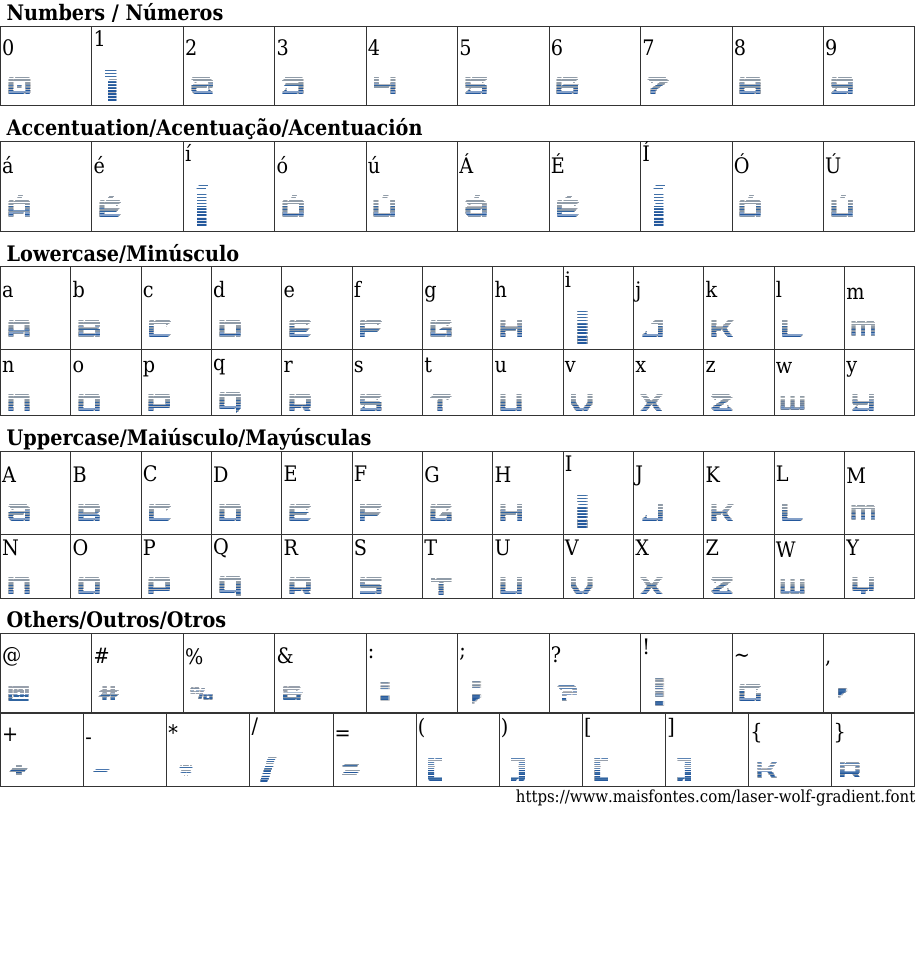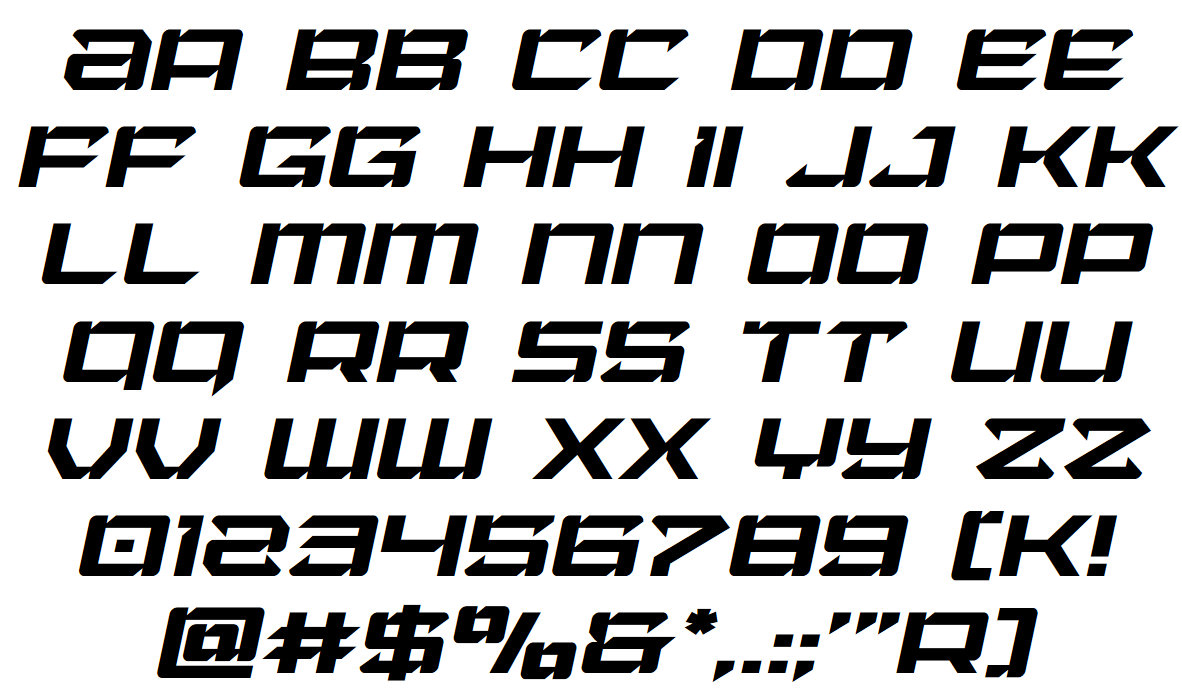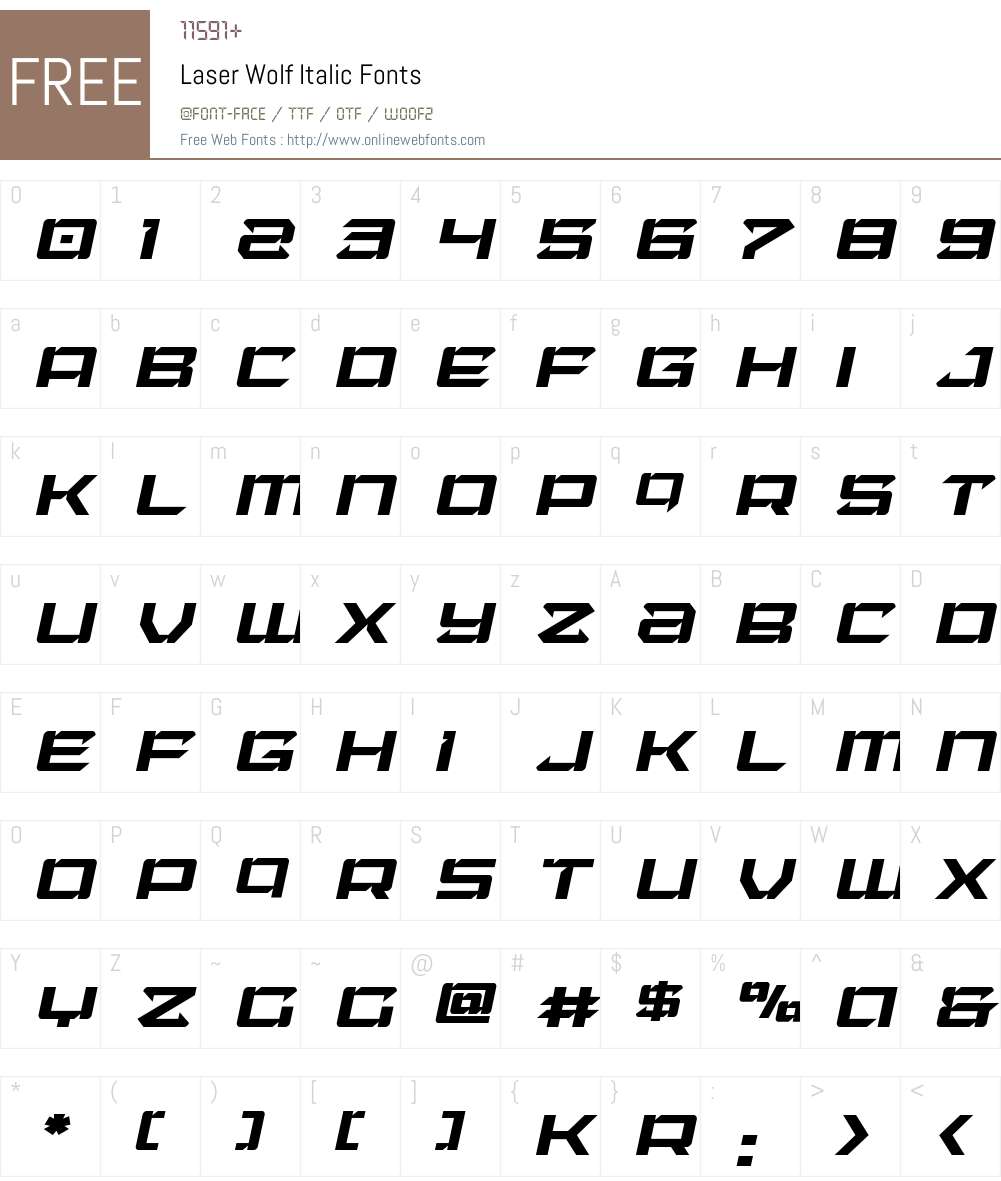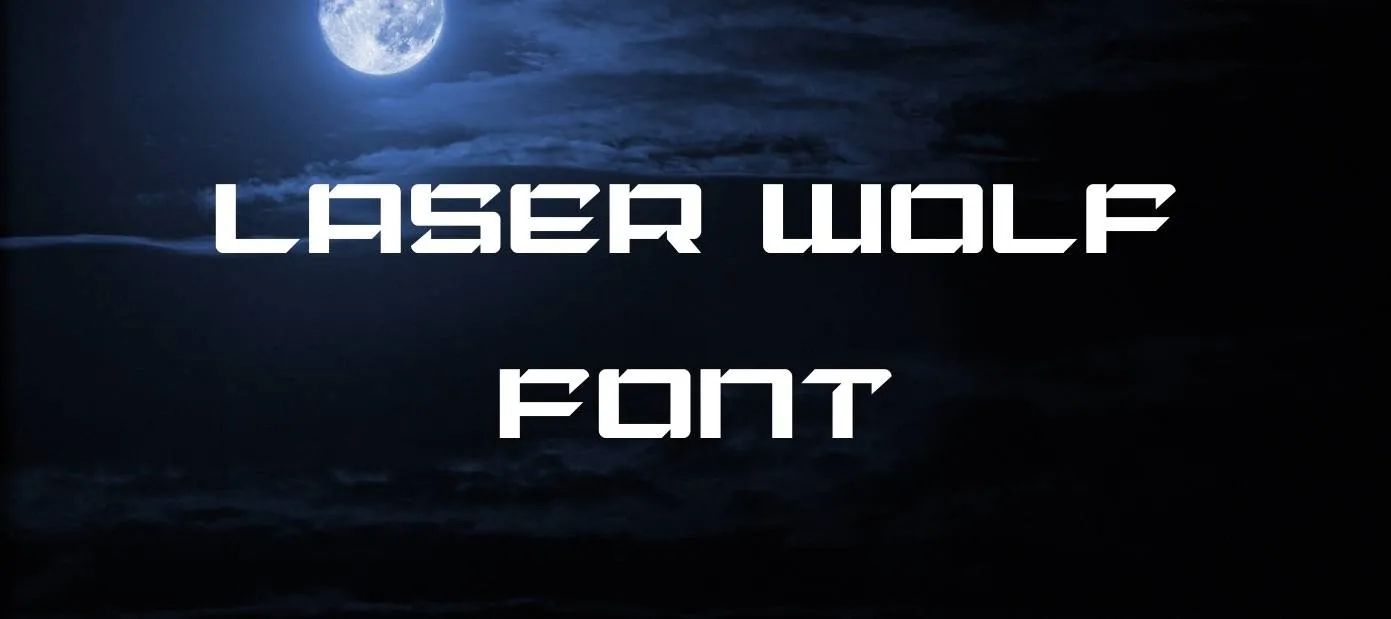
Laser Wolf Font . Laser wolf is a techno type font that can be used on any device such as pc, mac, linux,. File script name laserwolf.ttf download free for personal use. The laser wolf font contains 221 beautifully designed characters. Laser wolf à € by iconian fonts. Looking for laser wolf font designed by iconian fonts? The laser wolf bold font was designed by daniel zadorozny. Laser wolf font free download. A great choice for highlighting your design elements. Even a stopped clock is right twice a day.” Download font free at fontriver. Laser wolf “being right is highly overrated. Click here to create a custom image with your own text. Laser wolf font download is available free from fontget. ️ customize your own preview on ffonts.net to make sure it`s the right one for your designs. Laser wolf regular font by iconian fonts.
Looking for laser wolf font designed by iconian fonts? Download font free at fontriver. Click here to create a custom image with your own text. The laser wolf font contains 221 beautifully designed characters. Laser wolf à € by iconian fonts. Laser wolf bold is the perfect font for all your fun designs. A great choice for highlighting your design elements. File script name laserwolf.ttf download free for personal use. Laser wolf is a techno type font that can be used on any device such as pc, mac, linux,. Laser wolf font download is available free from fontget.
Laser Wolf Font Laser wolf font download is available free from fontget. The laser wolf font contains 221 beautifully designed characters. Laser wolf font free download. The laser wolf bold font was designed by daniel zadorozny. Laser wolf is a techno type font that can be used on any device such as pc, mac, linux,. Laser wolf à € by iconian fonts. Laser wolf bold is the perfect font for all your fun designs. Laser wolf font download is available free from fontget. Laser wolf “being right is highly overrated. Even a stopped clock is right twice a day.” Click here to create a custom image with your own text. ️ customize your own preview on ffonts.net to make sure it`s the right one for your designs. Looking for laser wolf font designed by iconian fonts? File script name laserwolf.ttf download free for personal use. A great choice for highlighting your design elements. Laser wolf regular font by iconian fonts.
Download free Laser Wolf Regular font laserwolf.ttf Laser Wolf Font Looking for laser wolf font designed by iconian fonts? Laser wolf “being right is highly overrated. Even a stopped clock is right twice a day.” Laser wolf font download is available free from fontget. Laser wolf bold is the perfect font for all your fun designs. Laser wolf regular font by iconian fonts. Laser wolf à € by iconian fonts.. Laser Wolf Font.
Laser Wolf 3D Italic Font Laser Wolf Font Even a stopped clock is right twice a day.” ️ customize your own preview on ffonts.net to make sure it`s the right one for your designs. Laser wolf regular font by iconian fonts. Laser wolf bold is the perfect font for all your fun designs. Click here to create a custom image with your own text. Laser wolf à €. Laser Wolf Font.
Laser Wolf Font Free Download Laser Wolf Font Laser wolf “being right is highly overrated. Laser wolf font free download. Download font free at fontriver. Laser wolf à € by iconian fonts. Even a stopped clock is right twice a day.” A great choice for highlighting your design elements. The laser wolf font contains 221 beautifully designed characters. Laser wolf font download is available free from fontget. Click. Laser Wolf Font.
Laser Wolf Italic Font Laser Wolf Font Laser wolf bold is the perfect font for all your fun designs. The laser wolf font contains 221 beautifully designed characters. The laser wolf bold font was designed by daniel zadorozny. Laser wolf à € by iconian fonts. Even a stopped clock is right twice a day.” File script name laserwolf.ttf download free for personal use. Looking for laser wolf. Laser Wolf Font.
Laser Wolf Italic 1.0; 2017 Fonts Free Download Laser Wolf Font ️ customize your own preview on ffonts.net to make sure it`s the right one for your designs. Laser wolf regular font by iconian fonts. The laser wolf bold font was designed by daniel zadorozny. A great choice for highlighting your design elements. Looking for laser wolf font designed by iconian fonts? Download font free at fontriver. Laser wolf font download. Laser Wolf Font.
Laser Wolf Bold font Laser Wolf Font The laser wolf bold font was designed by daniel zadorozny. Laser wolf “being right is highly overrated. Even a stopped clock is right twice a day.” Click here to create a custom image with your own text. ️ customize your own preview on ffonts.net to make sure it`s the right one for your designs. The laser wolf font contains 221. Laser Wolf Font.
Wolf Svg Wolf Font Howling Wolf Silhouette Etsy Australia Laser Wolf Font Laser wolf regular font by iconian fonts. Laser wolf “being right is highly overrated. Laser wolf font download is available free from fontget. Download font free at fontriver. A great choice for highlighting your design elements. ️ customize your own preview on ffonts.net to make sure it`s the right one for your designs. The laser wolf bold font was designed. Laser Wolf Font.
Wolf Laser SVG Cut File, Wolf DXF, Wolf Wall Art SVG So Fontsy Laser Wolf Font File script name laserwolf.ttf download free for personal use. Laser wolf font free download. Laser wolf regular font by iconian fonts. Laser wolf is a techno type font that can be used on any device such as pc, mac, linux,. Laser wolf “being right is highly overrated. The laser wolf bold font was designed by daniel zadorozny. A great choice. Laser Wolf Font.
Laser Wolf Gradient Free Font Download MaisFontes Laser Wolf Font Laser wolf à € by iconian fonts. The laser wolf bold font was designed by daniel zadorozny. The laser wolf font contains 221 beautifully designed characters. Looking for laser wolf font designed by iconian fonts? Laser wolf font free download. ️ customize your own preview on ffonts.net to make sure it`s the right one for your designs. File script name. Laser Wolf Font.
Download free Laser Wolf 3D Regular font Laser Wolf Font The laser wolf font contains 221 beautifully designed characters. Download font free at fontriver. Laser wolf is a techno type font that can be used on any device such as pc, mac, linux,. File script name laserwolf.ttf download free for personal use. ️ customize your own preview on ffonts.net to make sure it`s the right one for your designs. Looking. Laser Wolf Font.